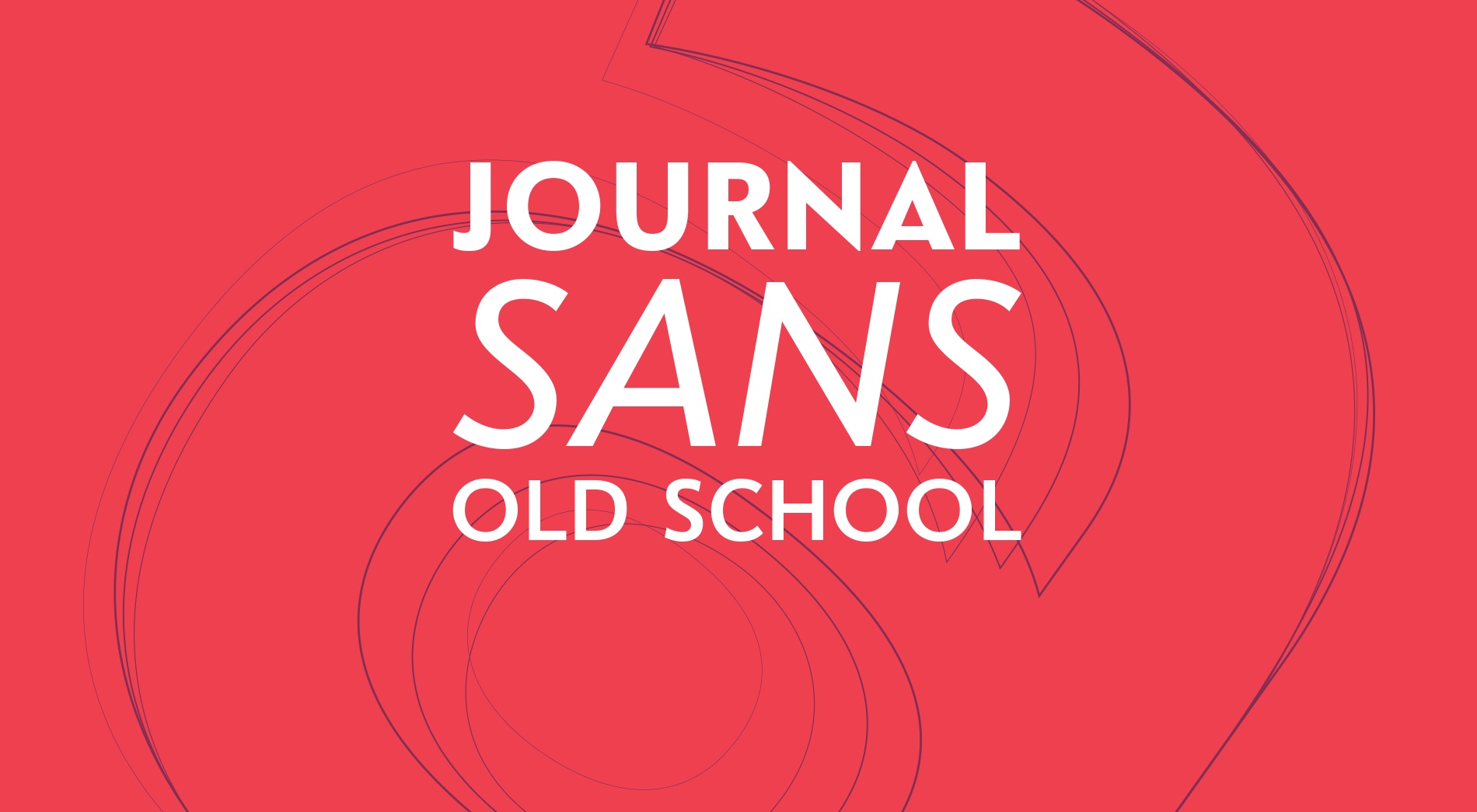
Journal Sans Old School Font is perfect for newspaper layouts, magazine editorials, academic publications, vintage branding, retro design projects, traditional journalism, classic book design, historical documentation, scholarly articles, and nostalgic publishing materials.
Journal Sans Old School Font is exciting because it masterfully combines the timeless appeal of traditional journalism with modern typographic functionality, creating letterforms that evoke the golden age of print media while maintaining exceptional readability for contemporary applications. Its classic character design bridges historical authenticity with current publishing standards, making it perfect for brands that value journalistic integrity and editorial excellence.
The Journal Sans Old School Font family includes Light, Regular, Medium, Bold, Heavy weights, corresponding Italic styles, Condensed variations, Caption sizes, Headline cuts, and Editorial alternates, providing designers with comprehensive tools for creating authentic publishing hierarchies and professional editorial layouts.
Journal Sans Old School Font Free Download delivers authentic editorial typography that honors the heritage of quality journalism while serving modern publishing needs. This distinguished typeface features carefully balanced proportions and optimized spacing that enhance readability across all formats, from traditional print newspapers to digital editorial platforms, ensuring consistent performance in professional publishing environments.
Whether you're designing newspapers, developing magazine brands, creating academic publications, or producing editorial content, Journal Sans Old School Font provides the credible foundation needed for trustworthy information design. Its authoritative character makes it particularly effective for news organizations, publishing houses, educational institutions, and media companies that prioritize editorial credibility and reader trust.
Perfect for editors, publishers, journalists, and communication professionals, this font offers the editorial qualities essential for successful information dissemination. The typeface's systematic approach to news typography ensures consistent readability across different story lengths, column widths, and reading conditions.
Journal Sans Old School Font includes extensive language support, professional typography features, and carefully calibrated optical sizes that guarantee optimal performance in editorial applications. Its journalistic approach to type design makes it indispensable for publications requiring sustained reader engagement. Enhance your editorial credibility with Journal Sans Old School Font Free Download and create typography that truly serves the story.